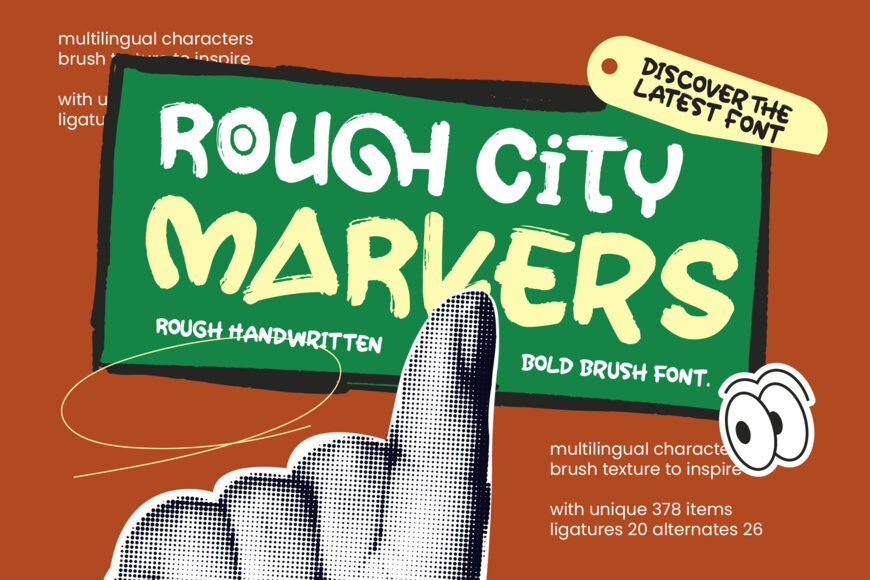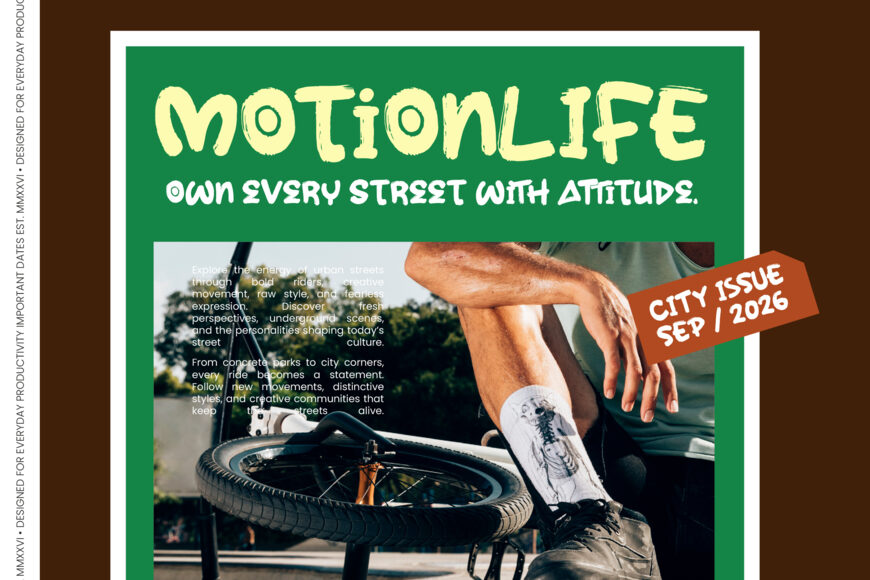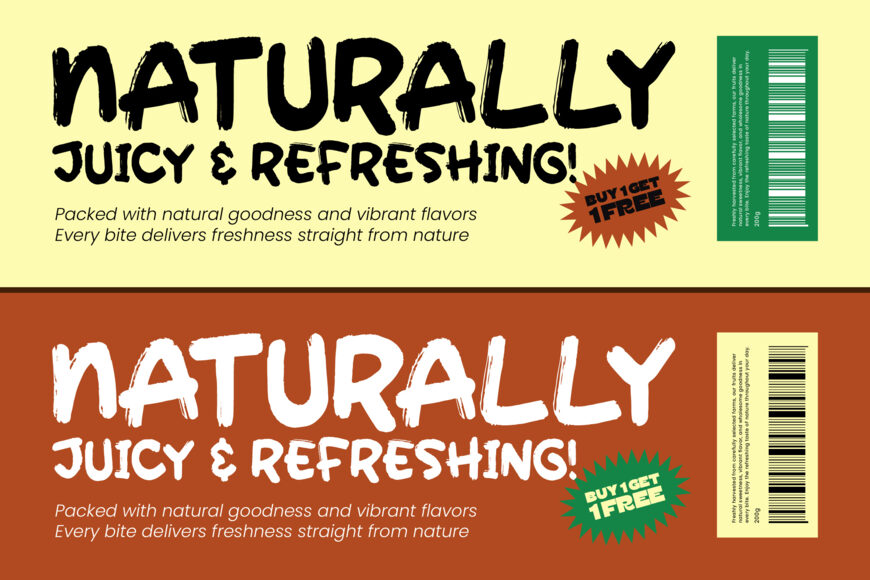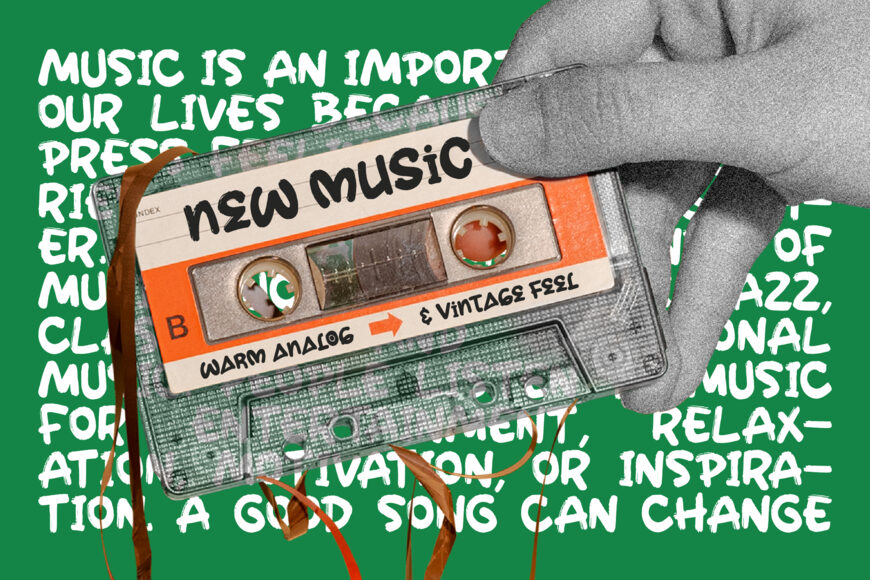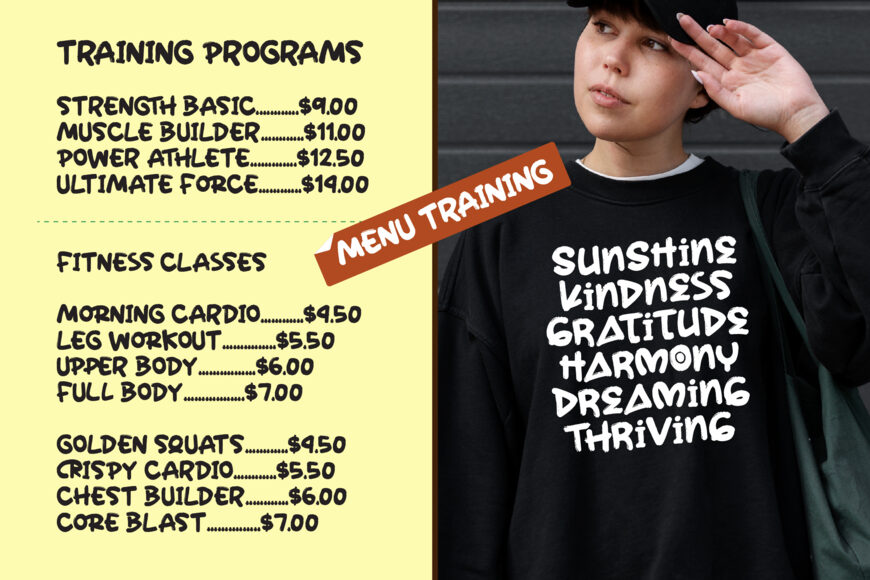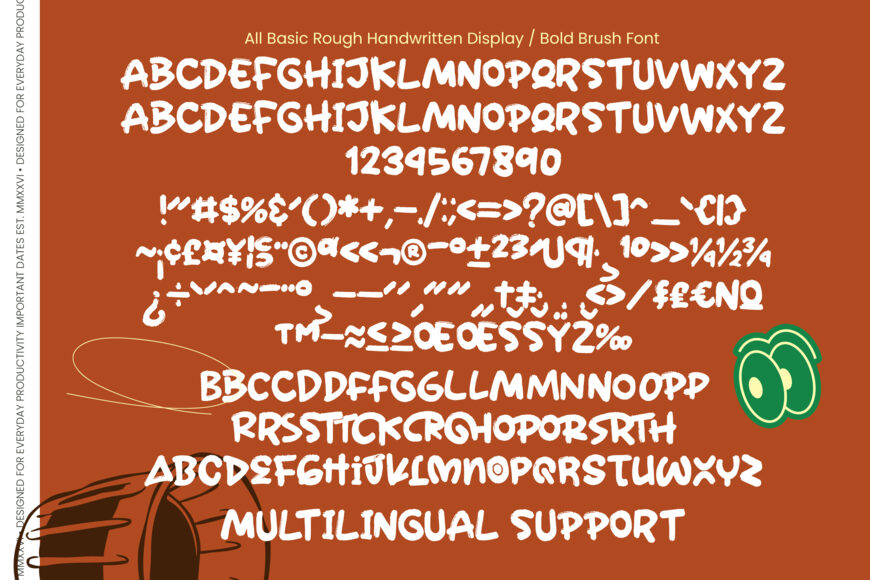
Rough City Markers Font
Bring bold urban energy to your designs with Rough City Markers, a hand-drawn brush font inspired by authentic street art. Its textured strokes deliver a powerful display style while retaining a crafted, organic feel.
Ideal for streetwear branding, packaging, editorial layouts, posters, social media content, merchandise, and attention-grabbing advertising, it includes distinctive ligatures and stylistic alternates for added originality.